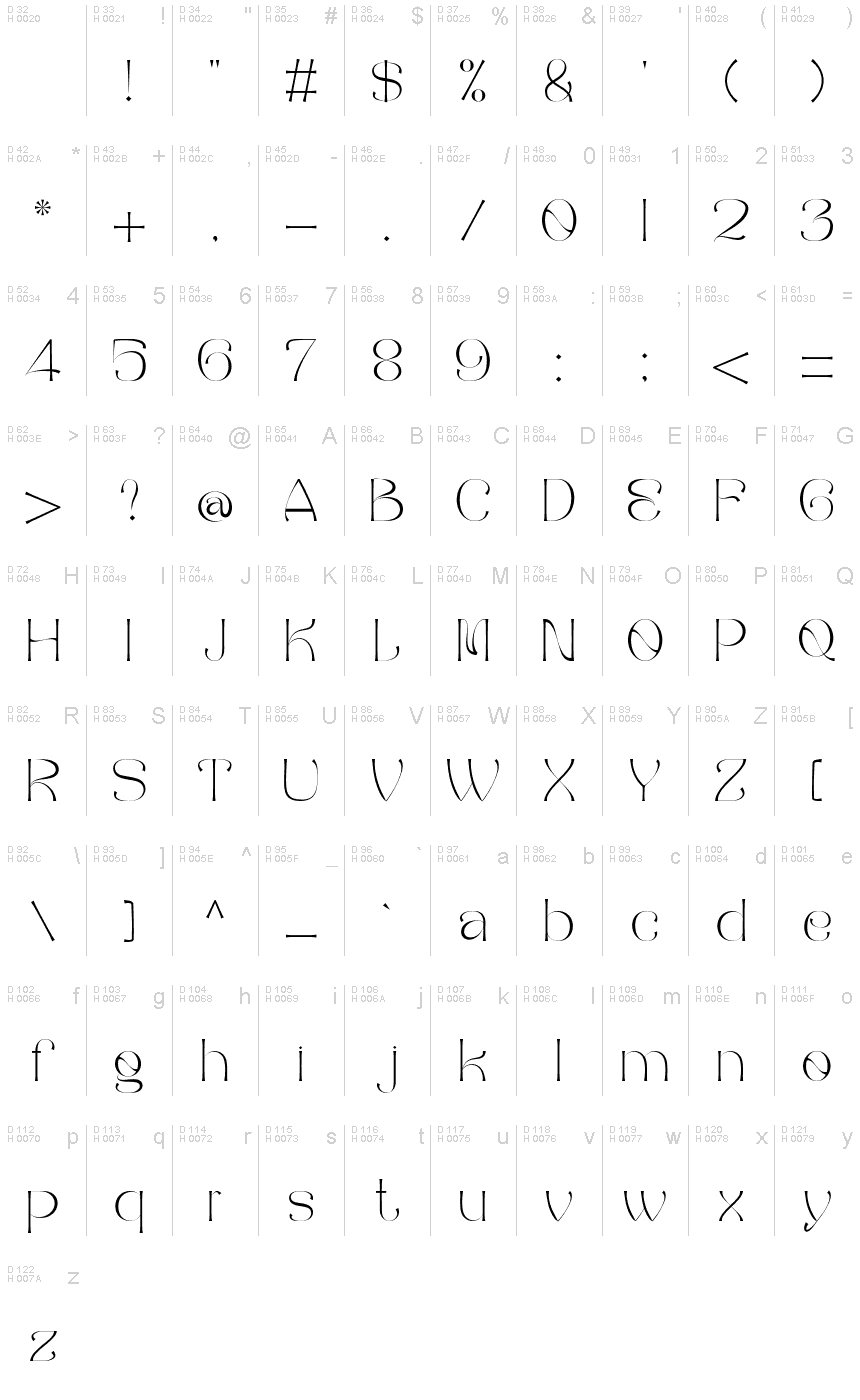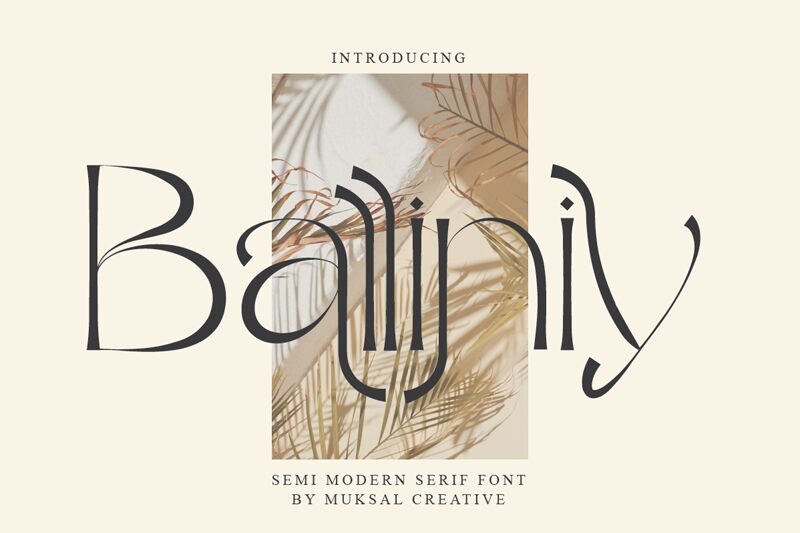
Balliniy
Balliniy is a beautiful semi-modern serif font designed by Muksal Creative. With its light weight, it's perfect for adding elegance and sophistication to invitations, greeting cards, logos, advertisements and more.